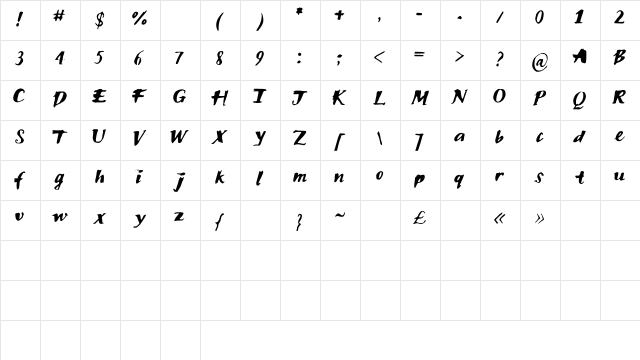
FirstDate Medium
Design Context for FirstDate Typeface
FirstDate is a composed and adaptable typeface that performs quietly and consistently across a wide range of design contexts.